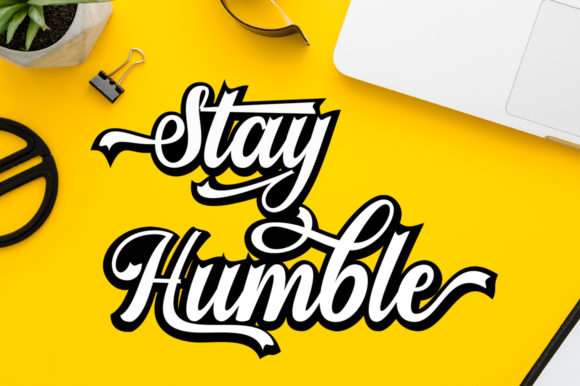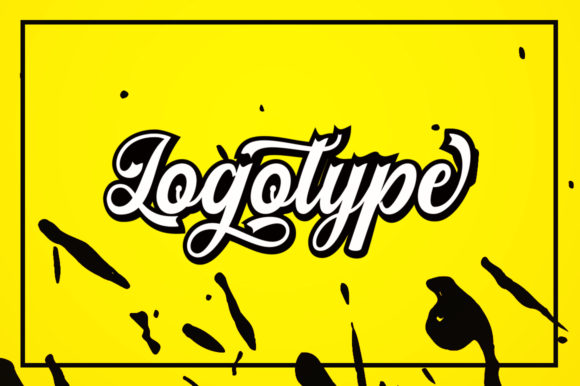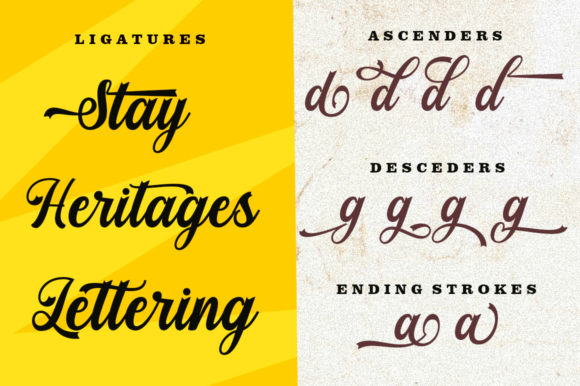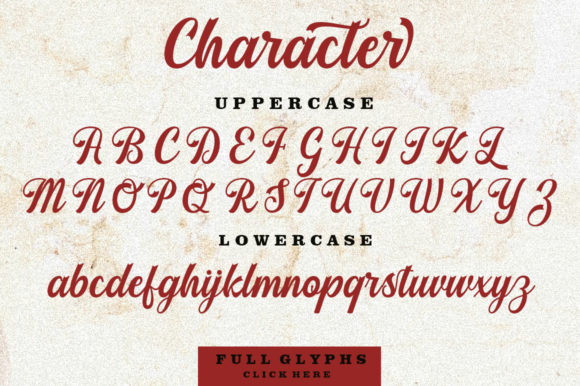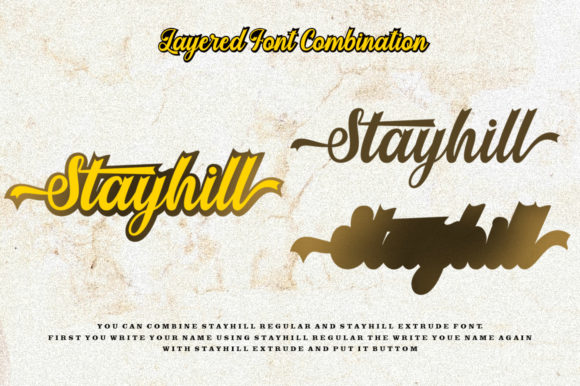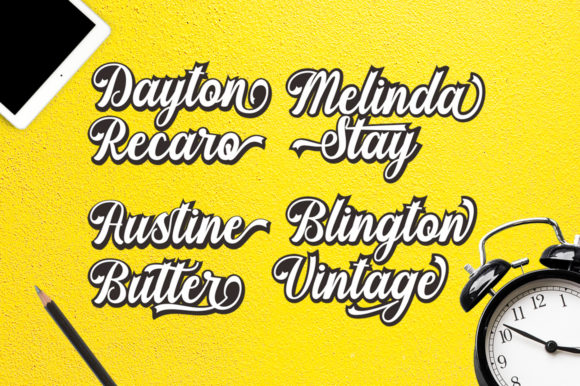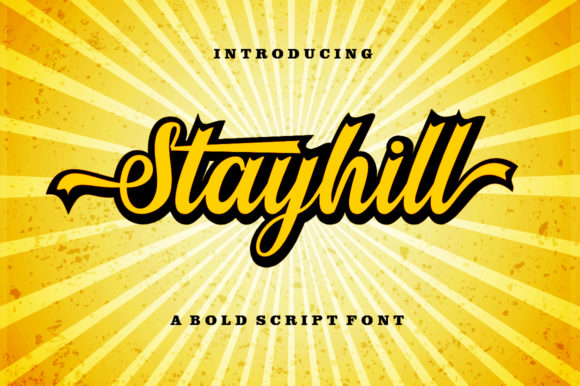
HomeScript FontsStayhill Font Script Fonts Stayhill Font FacebookXPinterestWhatsApp Stayhill Font Poster 2 Stayhill Font Poster 3 Stayhill Font Poster 4 Stayhill Font Poster 5 Stayhill Font Poster 6 Stayhill Font Poster 7 Stayhill Font Poster 8 About Stayhill Font Stayhill is a bold and charming monoline script with a bold flavor. Get inspired by its powerful charm! DOWNLOAD NOW People also explored Snorkly Font Almeera Font Merachel Angelika Font Garry Shelby Font Reindeer Christmas Font Soccer Font The February Font The Brighter Font Jack and Rose Font 392 0 TagsStayhill Font Previous articleLos Angeles FontNext articleRaspberry Duo Font LEAVE A REPLY Cancel reply Comment: Please enter your comment! Name:* Please enter your name here Email:* You have entered an incorrect email address! Please enter your email address here Website: Save my name, email, and website in this browser for the next time I comment. Personal Use Free Love Heart Personal Use Free Read more about this font Remember Personal Use Free Read more about this font Genres Personal Use Free Read more about this font Uchiyama Personal Use Free Read more about this font BLOG Using Fonts in Digital Marketing: Tips to Strengthen Your Brand Identity In the realm of digital marketing, every visual element plays a crucial role in shaping a brand's identity, and fonts are no exception. The... Best Fonts for T-Shirt Design – Top 2025 Picks Top 10 Handwritten Fonts That Elevate Your Designs Elegant Wedding Invitation Fonts – Handwritten & Script Fonts